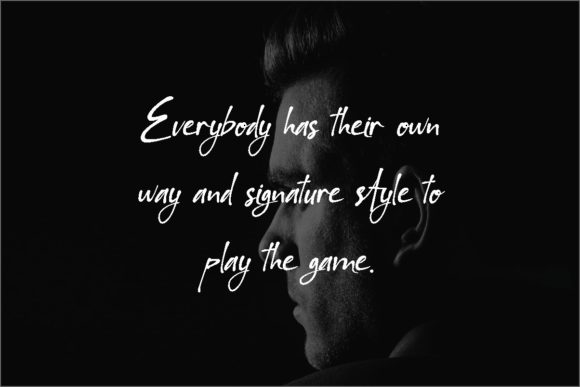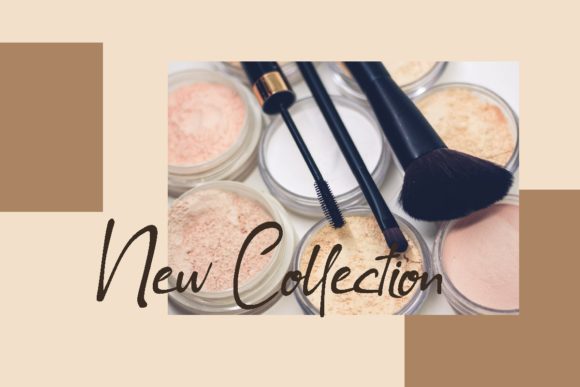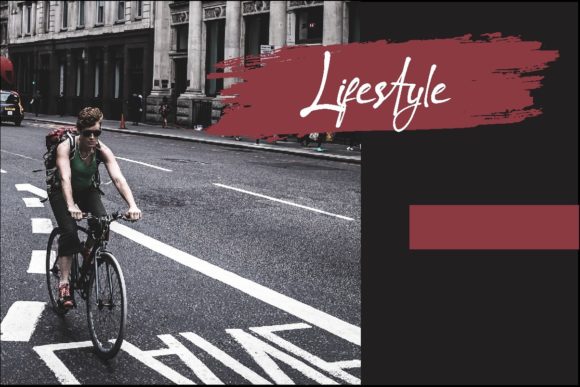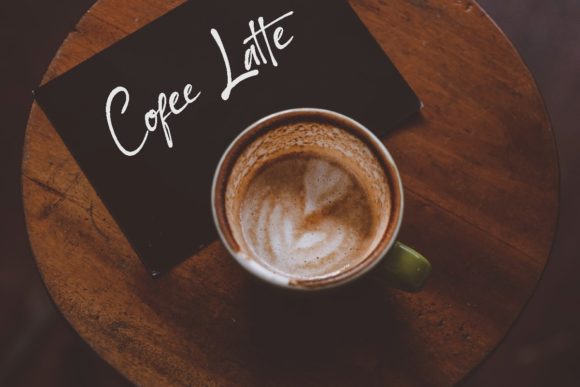
About Ramdani Signature Font
Ramdani Signature is a stunning script font that exudes elegance and sophistication. With its contemporary atmosphere and impeccable form, this font adds a touch of timeless beauty to any design.
Inspired by classic calligraphy, Ramdani Signature captures the essence of handcrafted lettering with its flowing and graceful strokes. The letters are carefully designed to strike the perfect balance between thin and thick lines, creating a harmonious and visually appealing look.
The versatility of Ramdani Signature makes it suitable for a wide range of projects. Whether you’re designing wedding invitations, branding materials, logos, or any other creative work, this font adds a touch of refinement and style.
The distinct and refined letterforms of Ramdani Signature elevate the beauty of your projects. Each character is meticulously crafted, allowing the font to shine in both small and large sizes. The result is a stunning typographic experience that captures attention and leaves a lasting impression.
With its impeccable form, Ramdani Signature brings a sense of sophistication and professionalism to your designs. The font’s contemporary atmosphere adds a modern twist to traditional calligraphy, making it suitable for both classic and contemporary design aesthetics.
Ramdani Signature is versatile and flexible, allowing you to explore various design options. It pairs well with other fonts and elements, providing endless possibilities for creative combinations and layouts.
Whether you’re creating elegant wedding stationery, luxurious branding materials, or refined editorial designs, Ramdani Signature is a font that will enhance the beauty and elegance of your projects.
In summary, Ramdani Signature is an elegant script font with a contemporary atmosphere and impeccable form. It brings a timeless classic calligraphy style to your designs, adding sophistication and refinement. Embrace the beauty of Ramdani Signature and let it elevate the visual appeal of your projects.